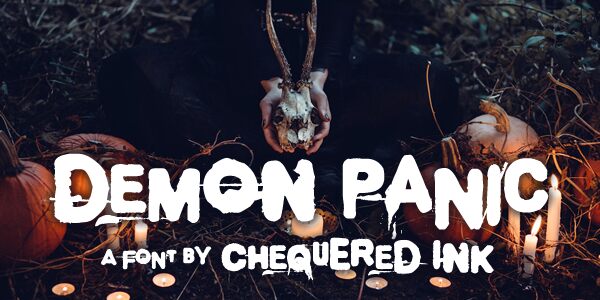
Demon Panic
Demon Panic is a bold and unsettling font that immediately commands attention. Designed by Chequered Ink, this display typeface exudes an undeniable air of terror, with its jagged, dripping letterforms evoking a sense of impending doom. The font's heavy, expanded weight lends it an imposing presence, while the eerie, distorted shapes of the characters suggest a supernatural, otherworldly quality.
This font would be particularly well-suited for horror-themed projects, from movie posters and book covers to video game assets and Halloween decorations. Its stark, unsettling aesthetic could also lend an edge to branding and packaging for products with a dark, edgy appeal. Demon Panic is a typographic statement that is sure to leave a lasting impression on any viewer, making it a versatile tool for designers seeking to evoke a mood of pure, unadulterated fear.